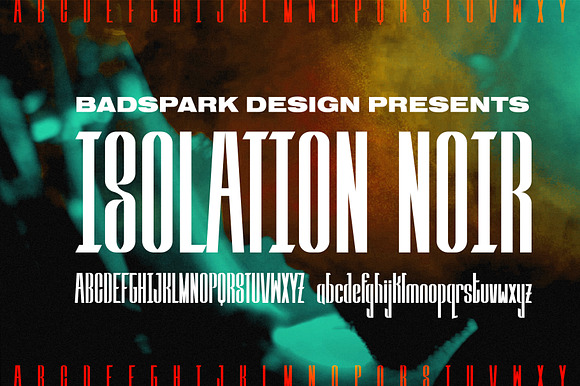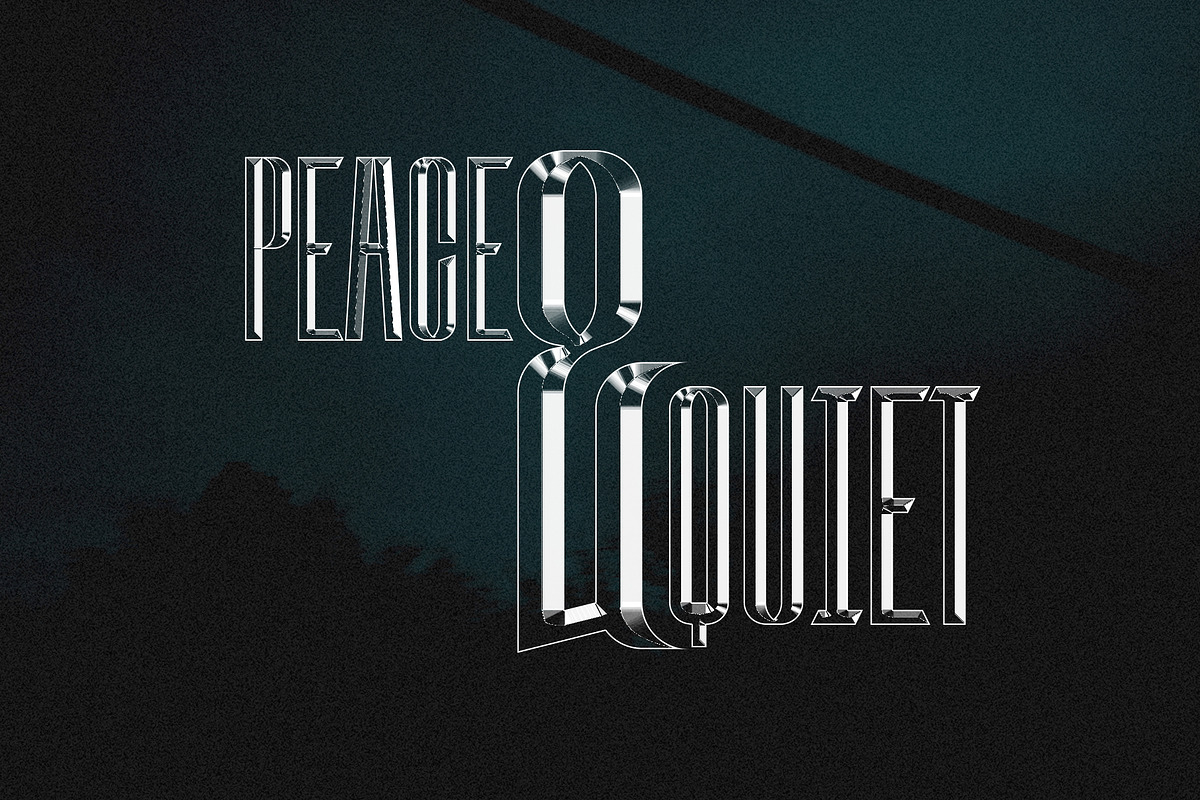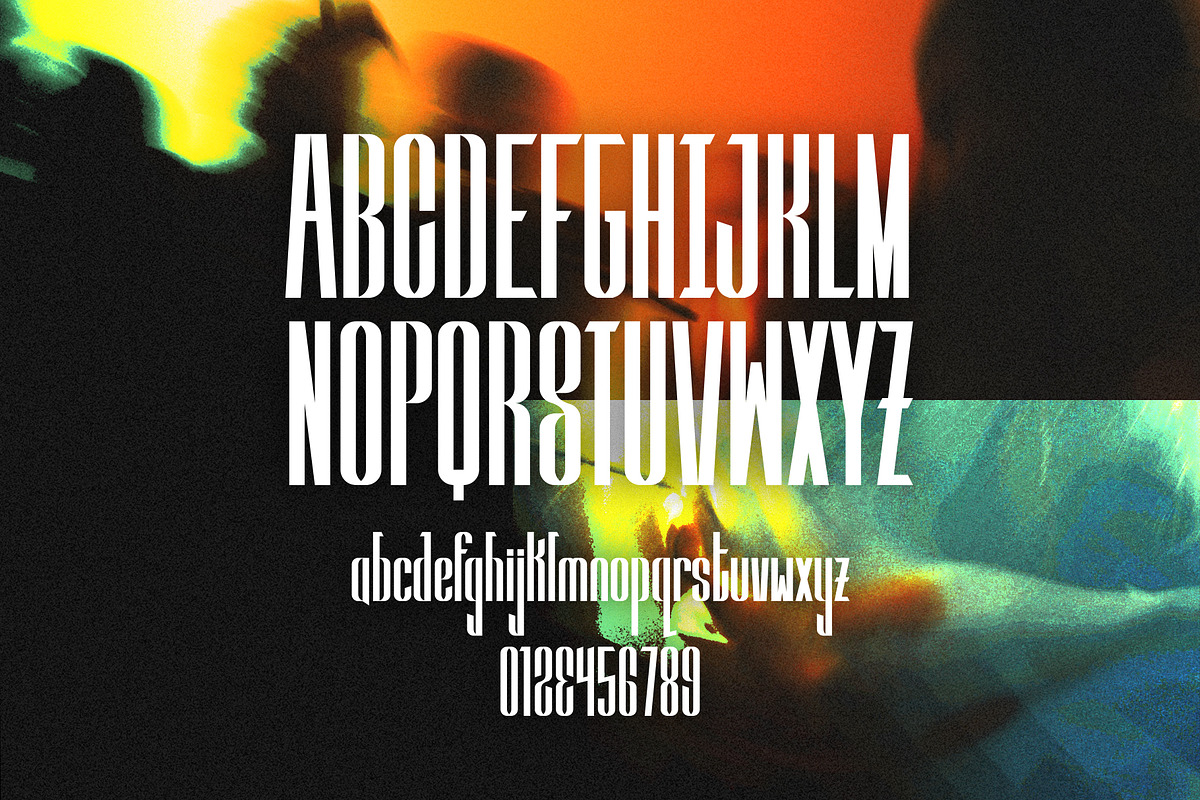
Modern Condensed Serif Font
Created during the isolation we all experienced in 2020, this font hopes to evoke a claustrophobic and aggressive font, evocative of the anxiety and isolation many struggles with. Strictly design-wise it is a condensed serif font with an elegant yet strong weight. It is also inspired by these themes in many noir pieces and the style of yesteryear.
• A elegant Condensed Serif font
• Capital and Lowercase